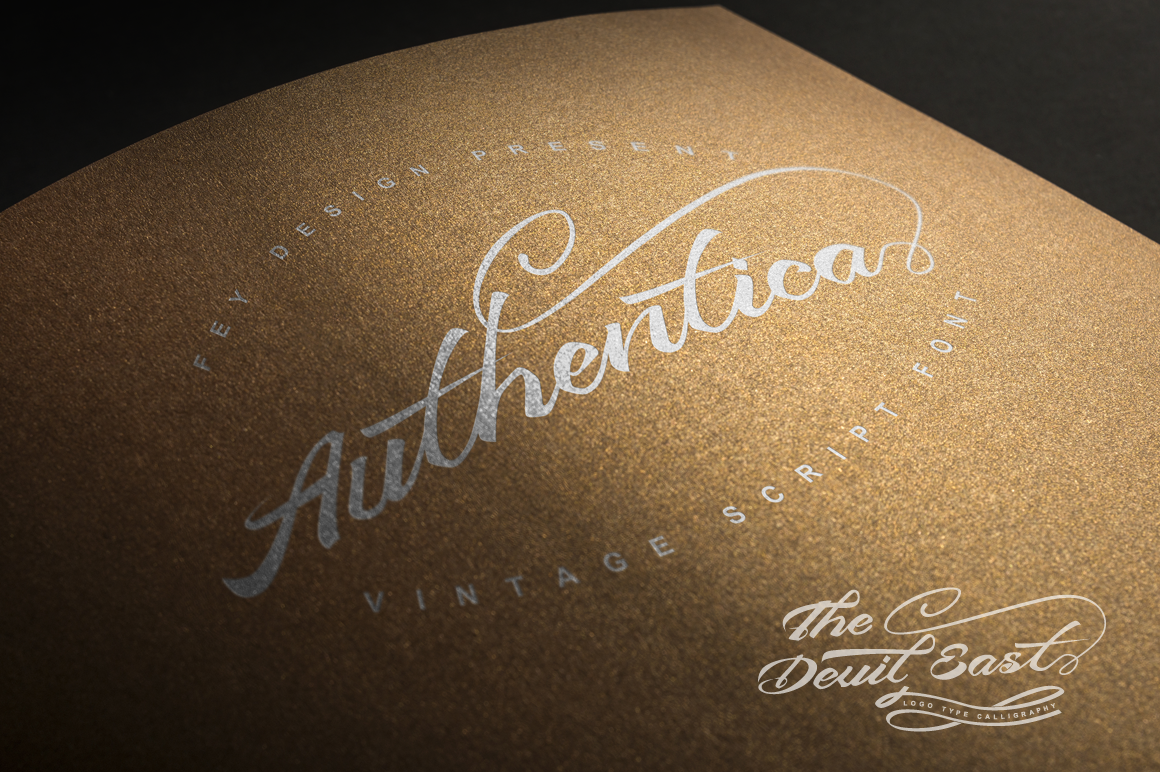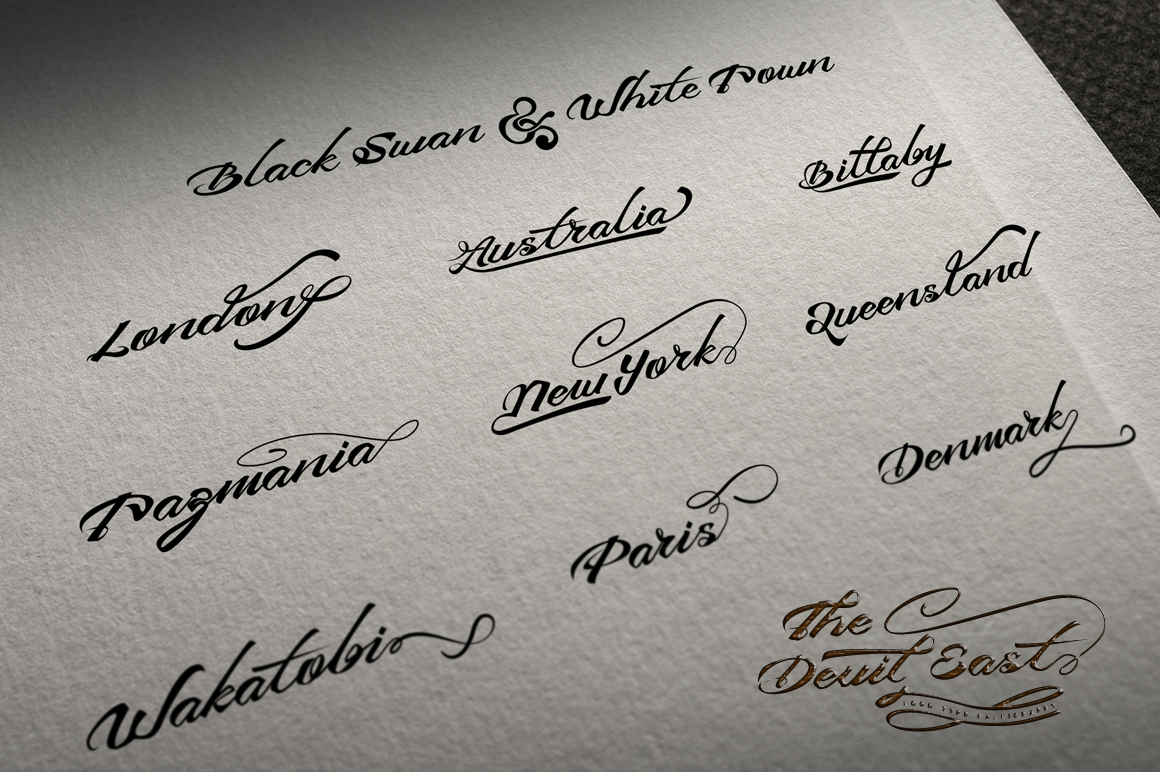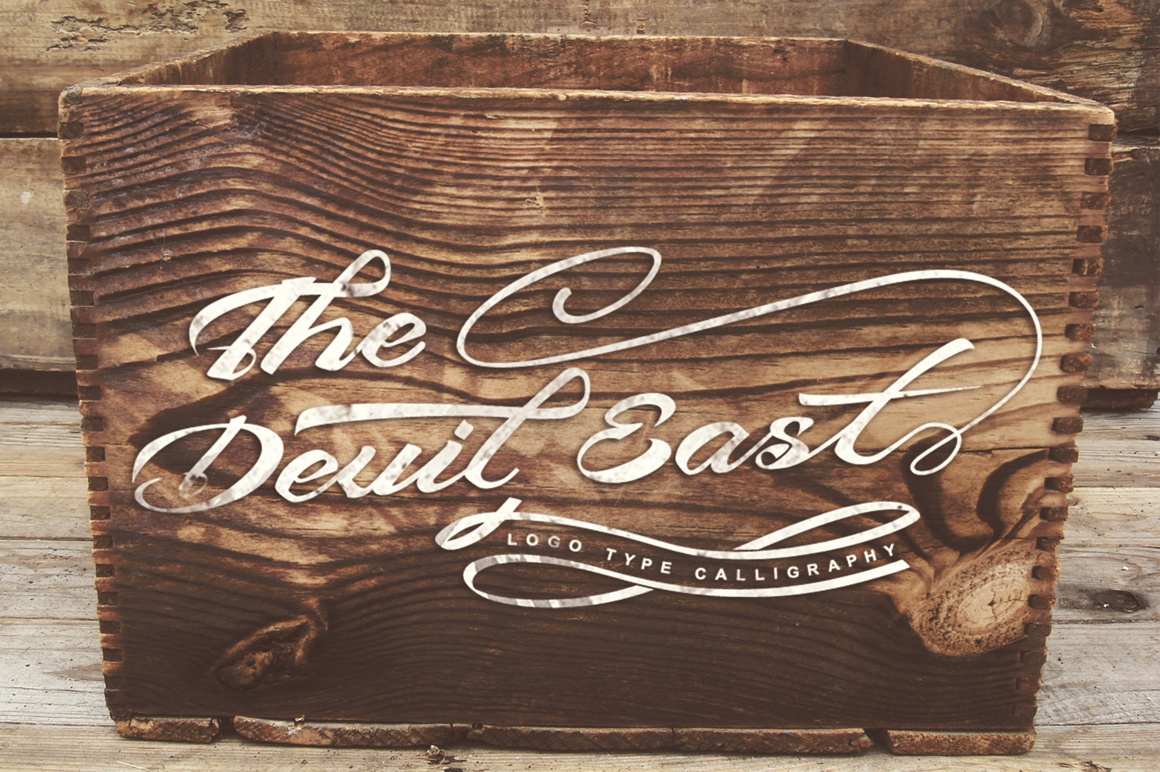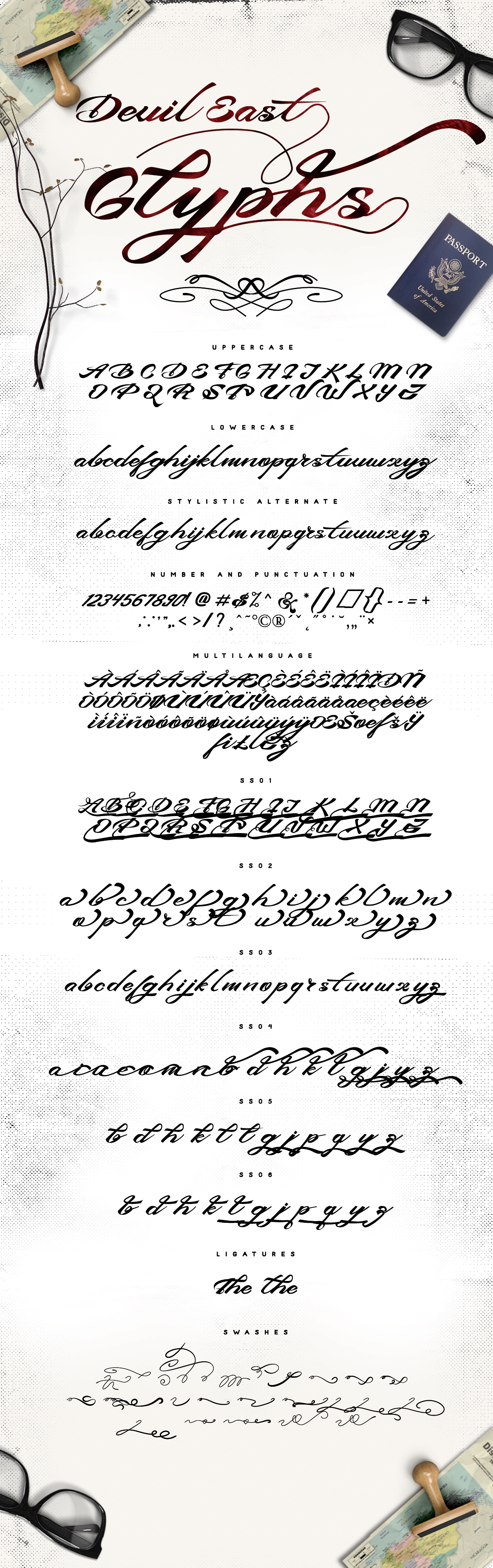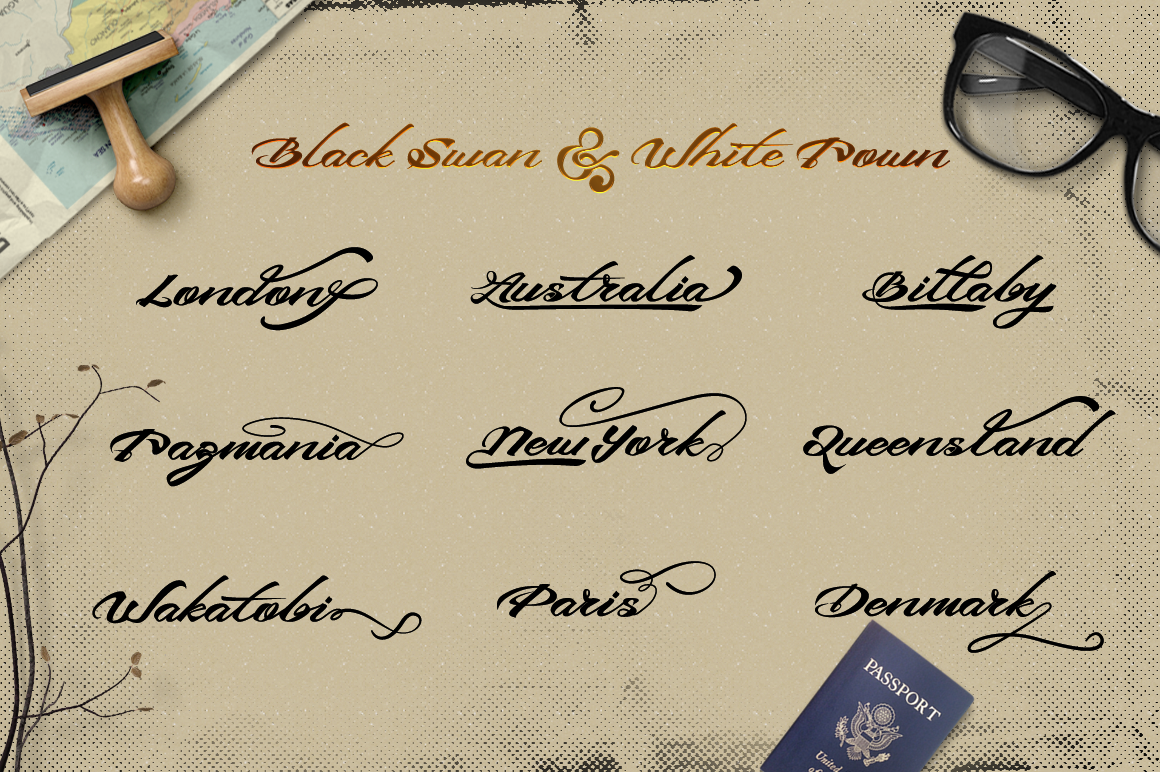
Introduction to Devil East Font
Devil East is a beautiful logotype script font, ideal for a wide range of designs.
This font is great for displays, and has tons of decorative characters so you can maximize your typographic design projects .